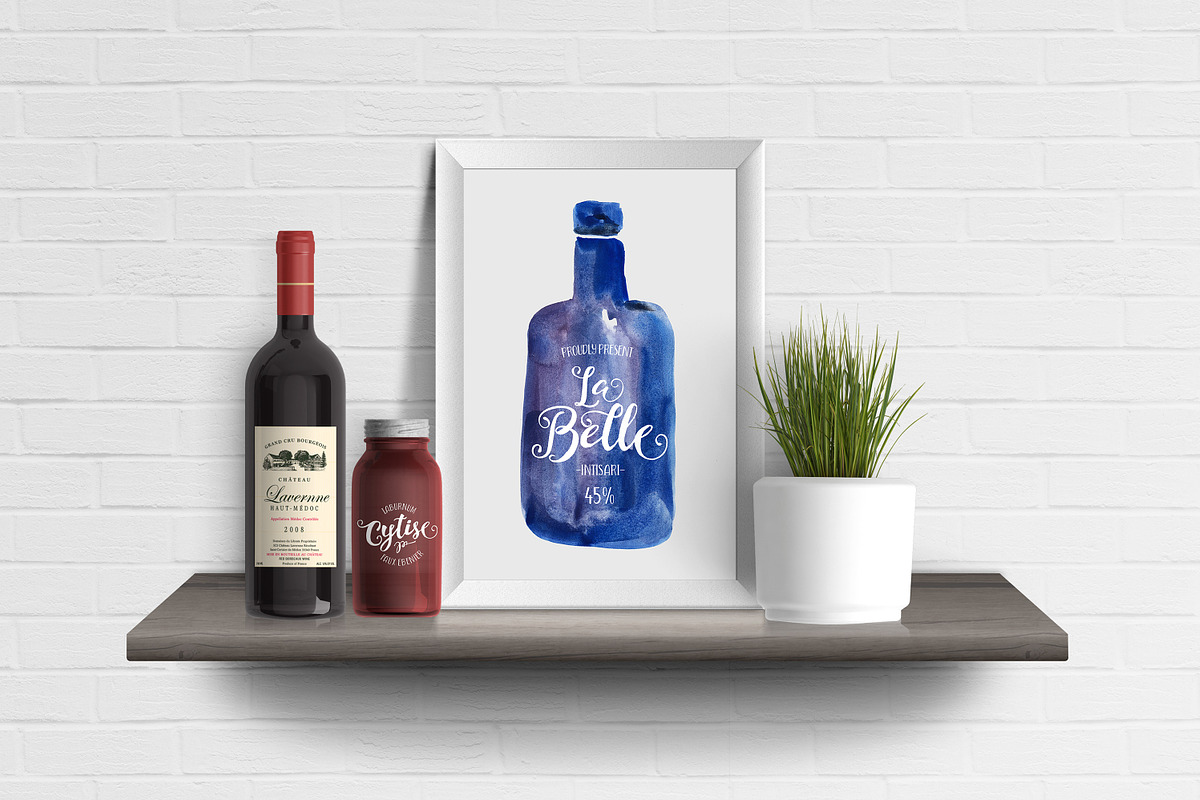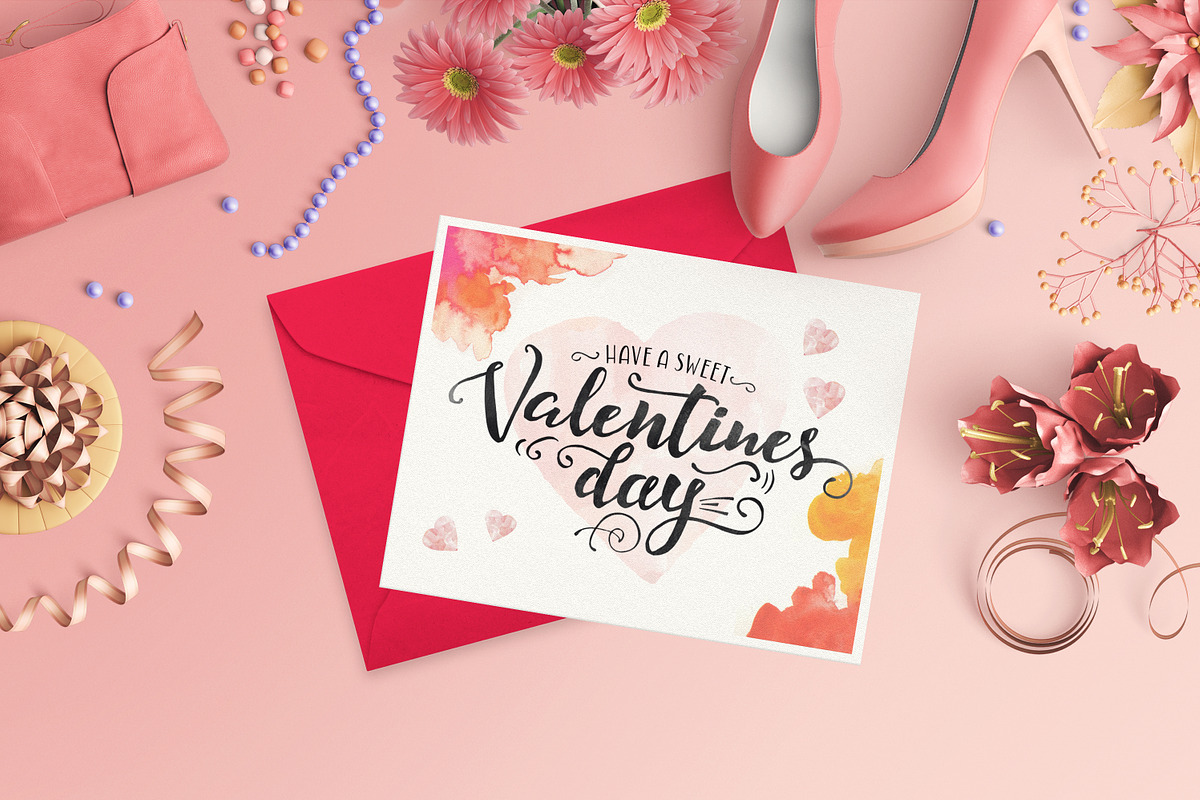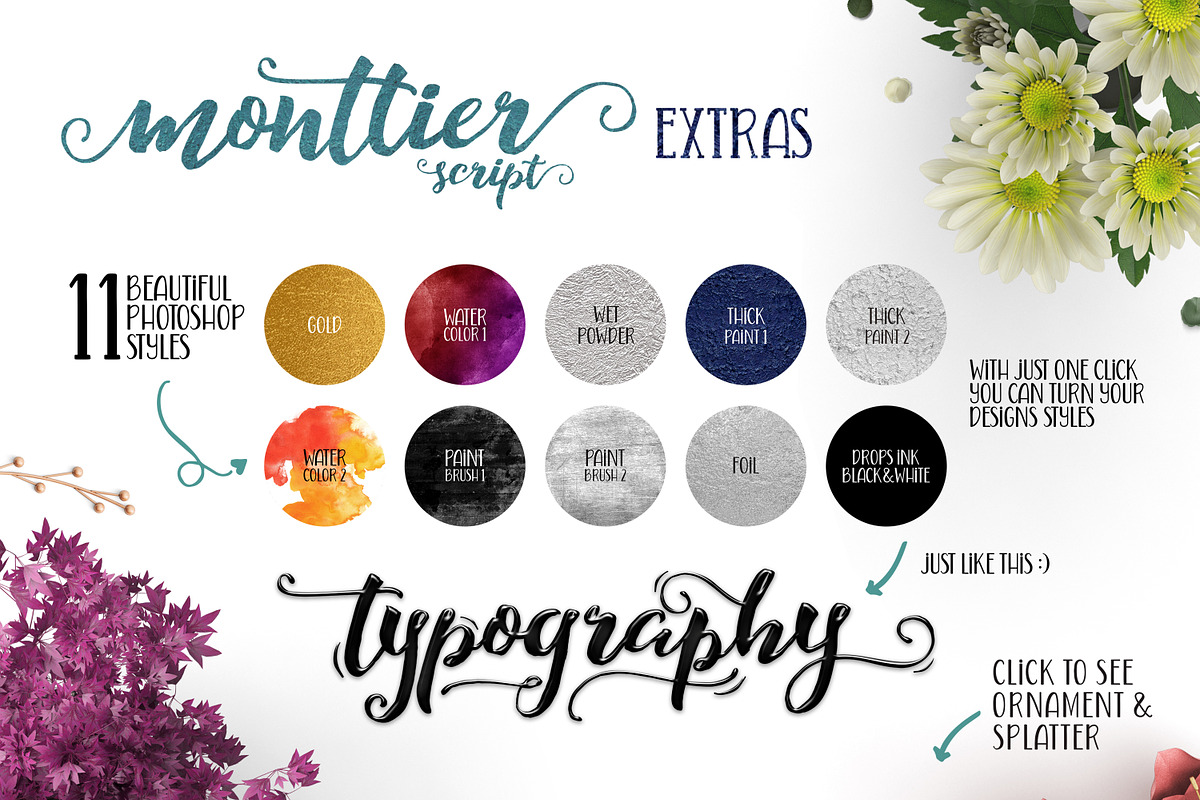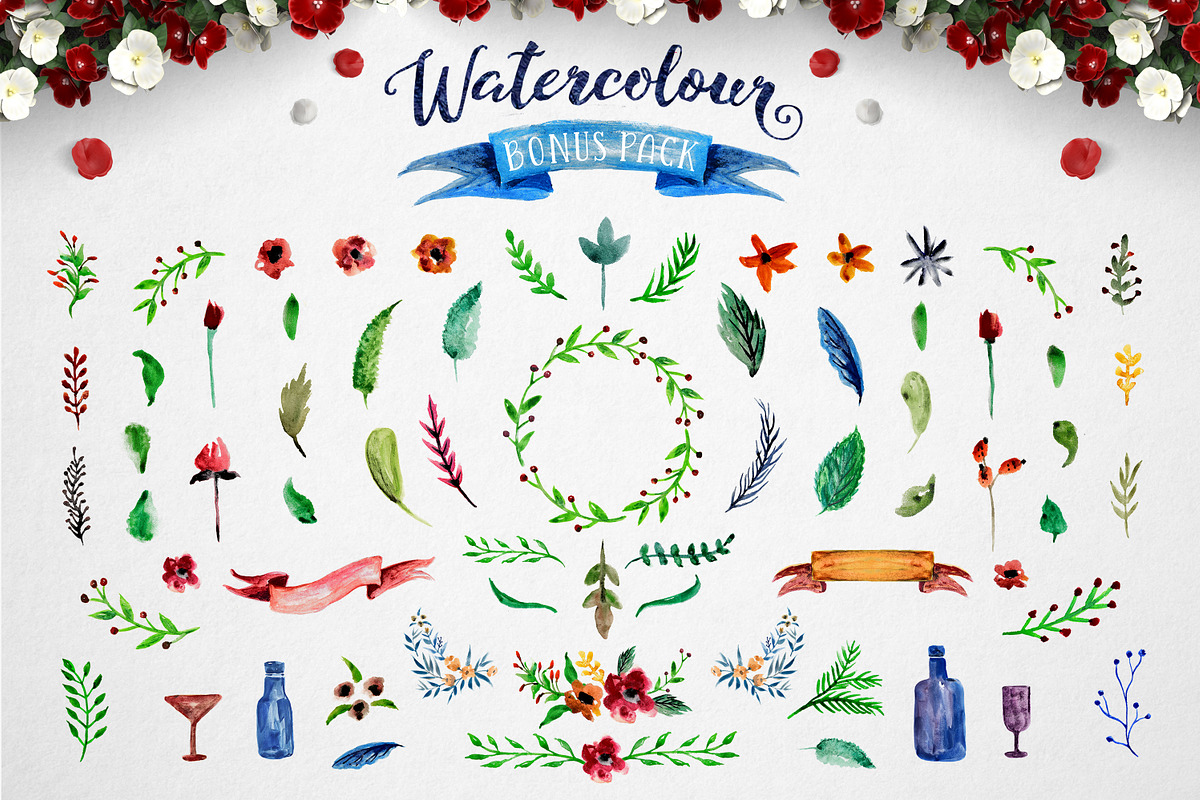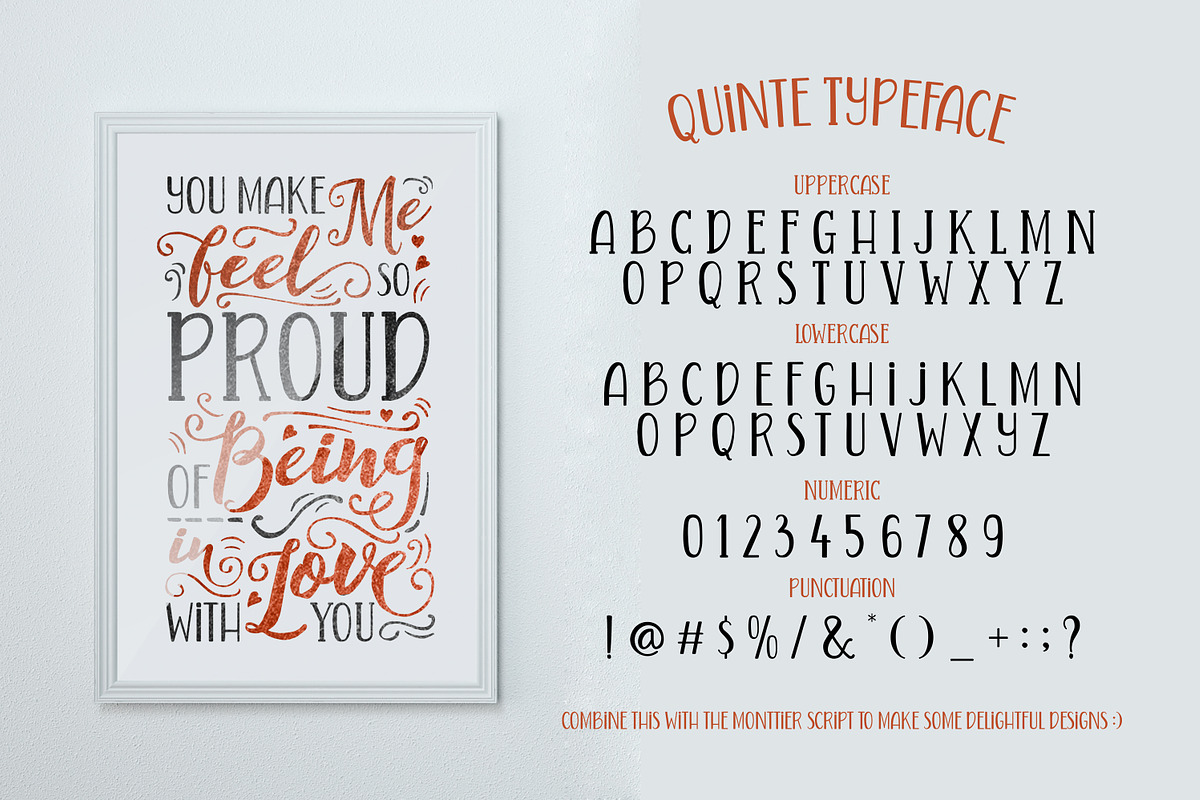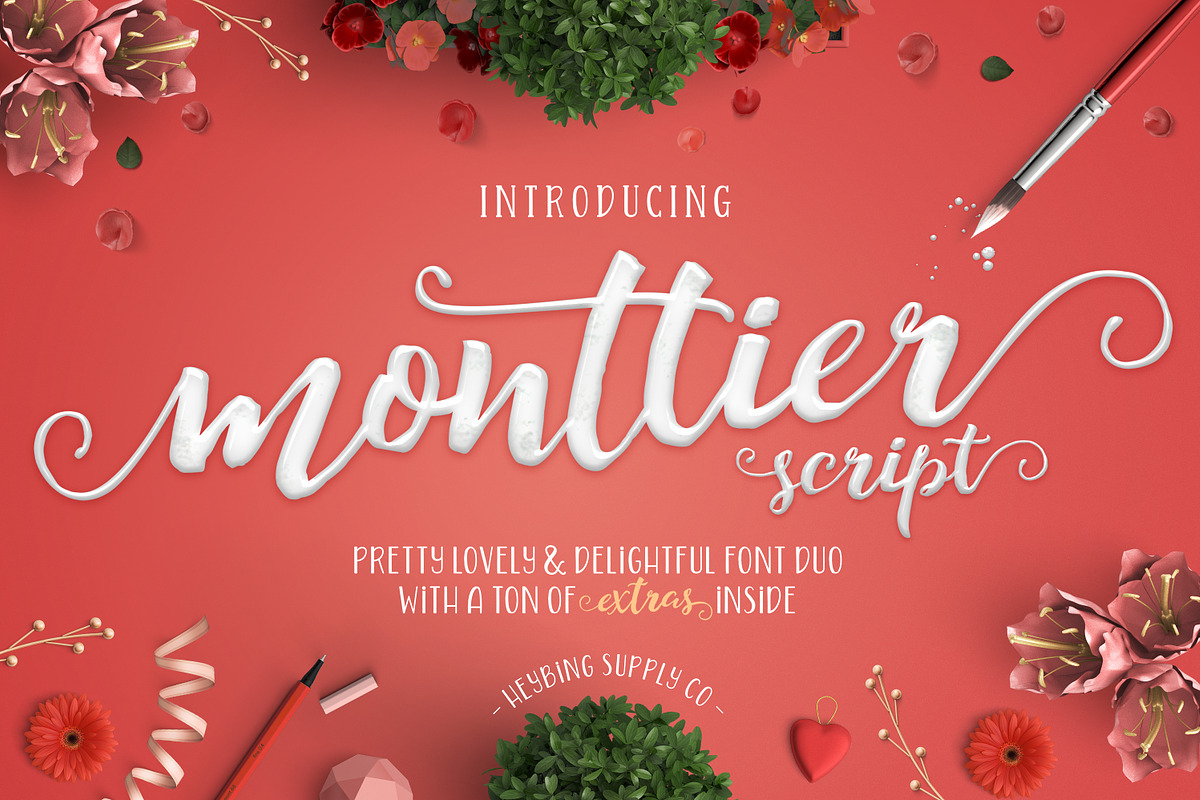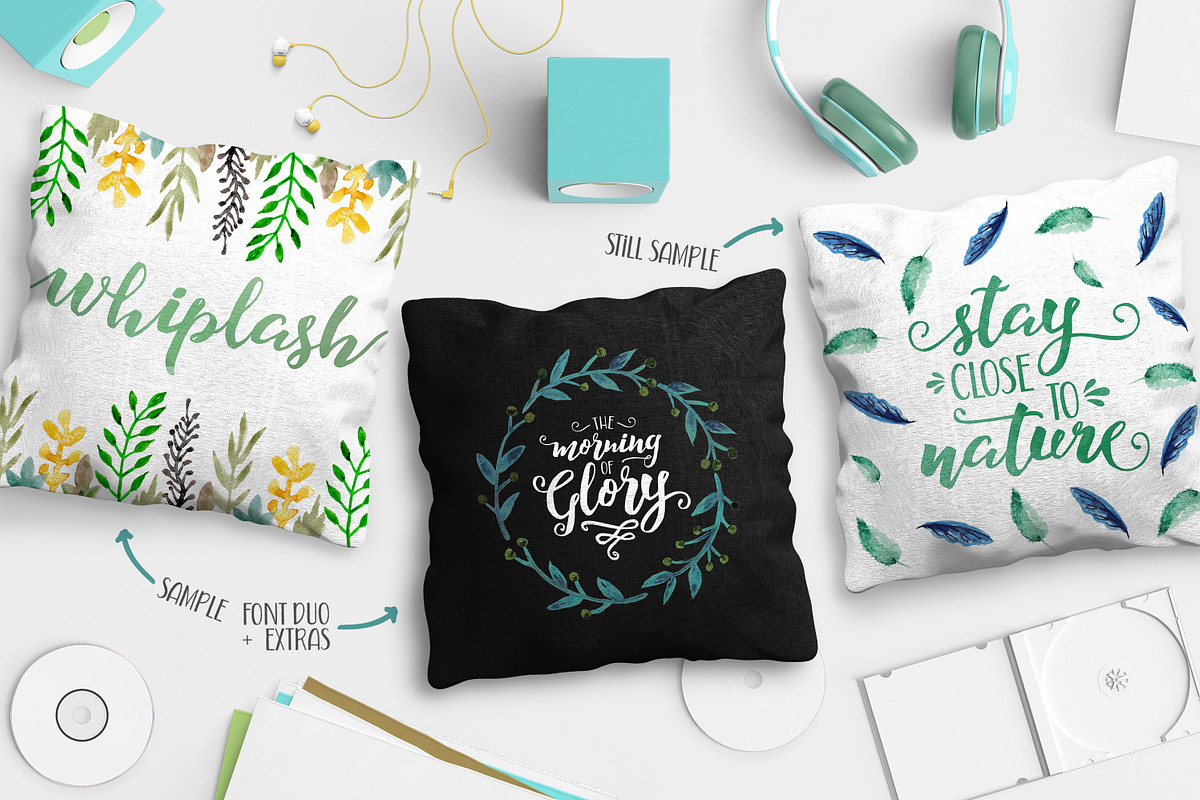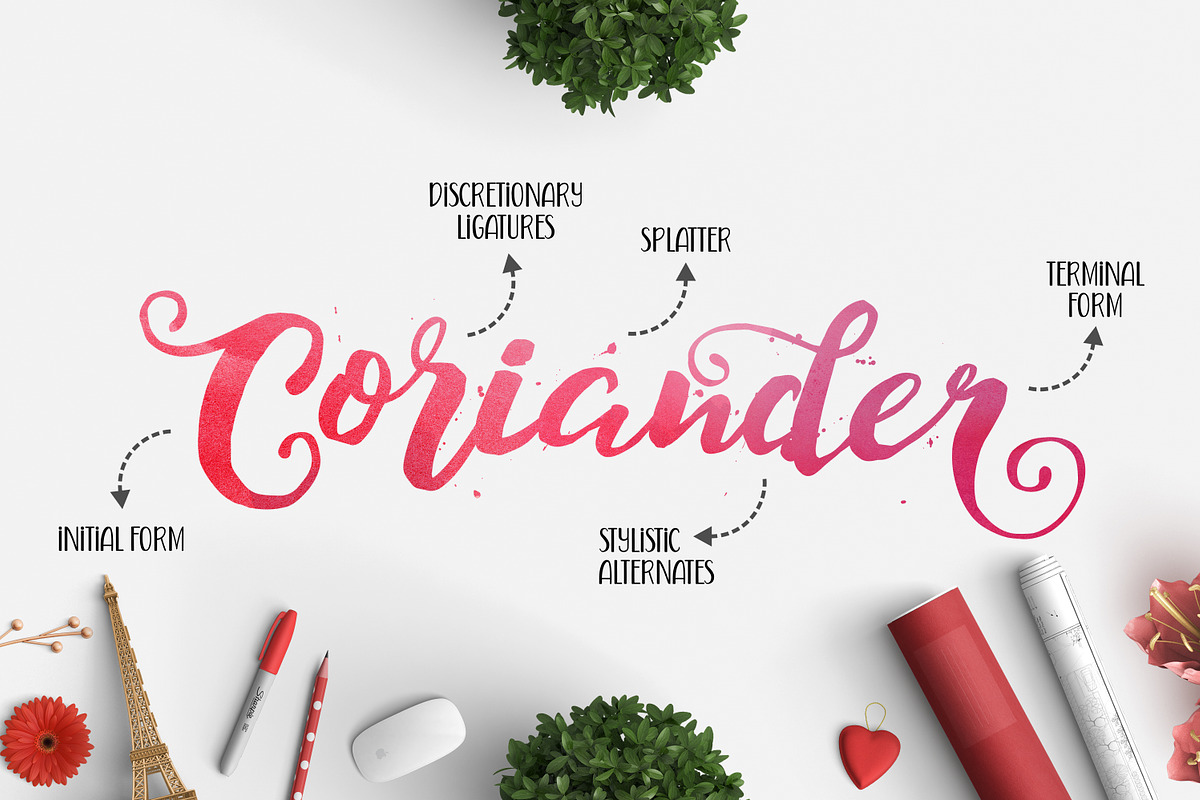
Monttier Script Font Duo
Monttier Script Font Duo by Heybing Supply Co. is a font selected for branding, posters, packaging, typography.
- The Monttier Script includes a full set of capital and lowercase letters, as well as multi-lingual support, currency figures, numerals, punc
Why Monttier Script Font Duo is worth a look
Monttier Script Font Duo by Heybing Supply Co. fits naturally into Branding, posters, packaging, typography.